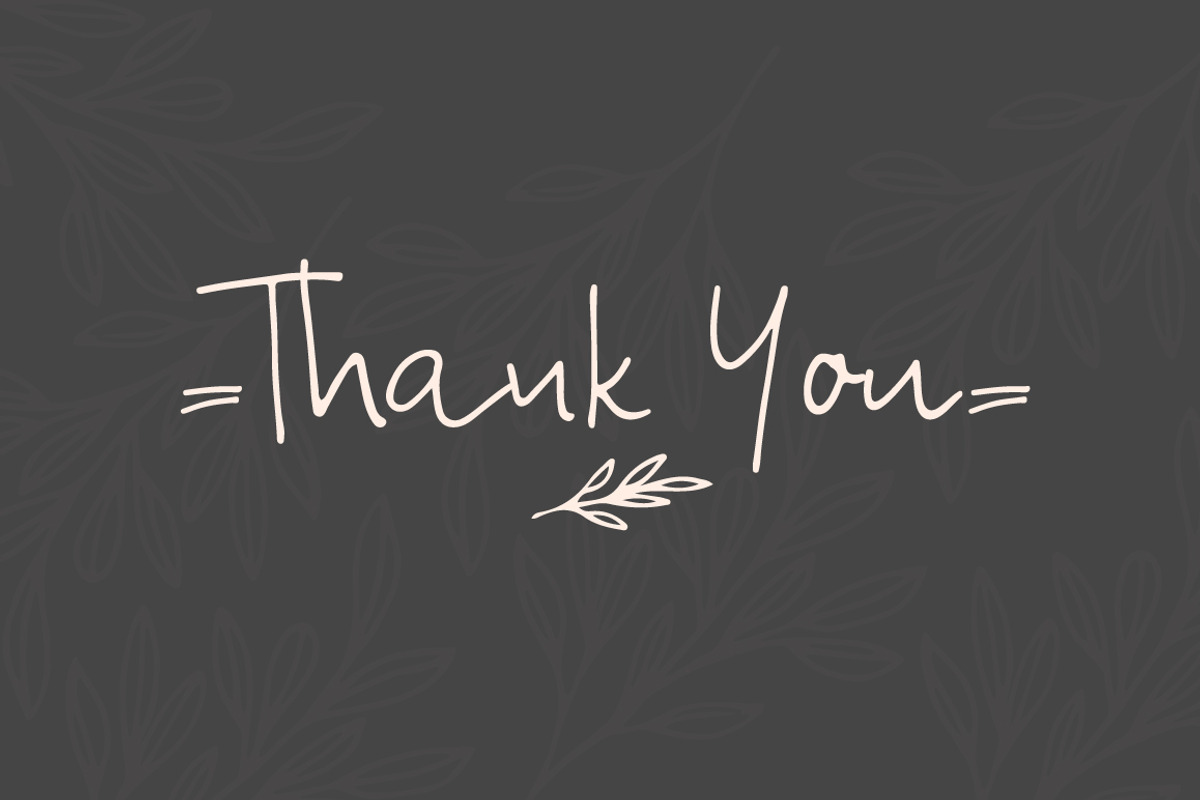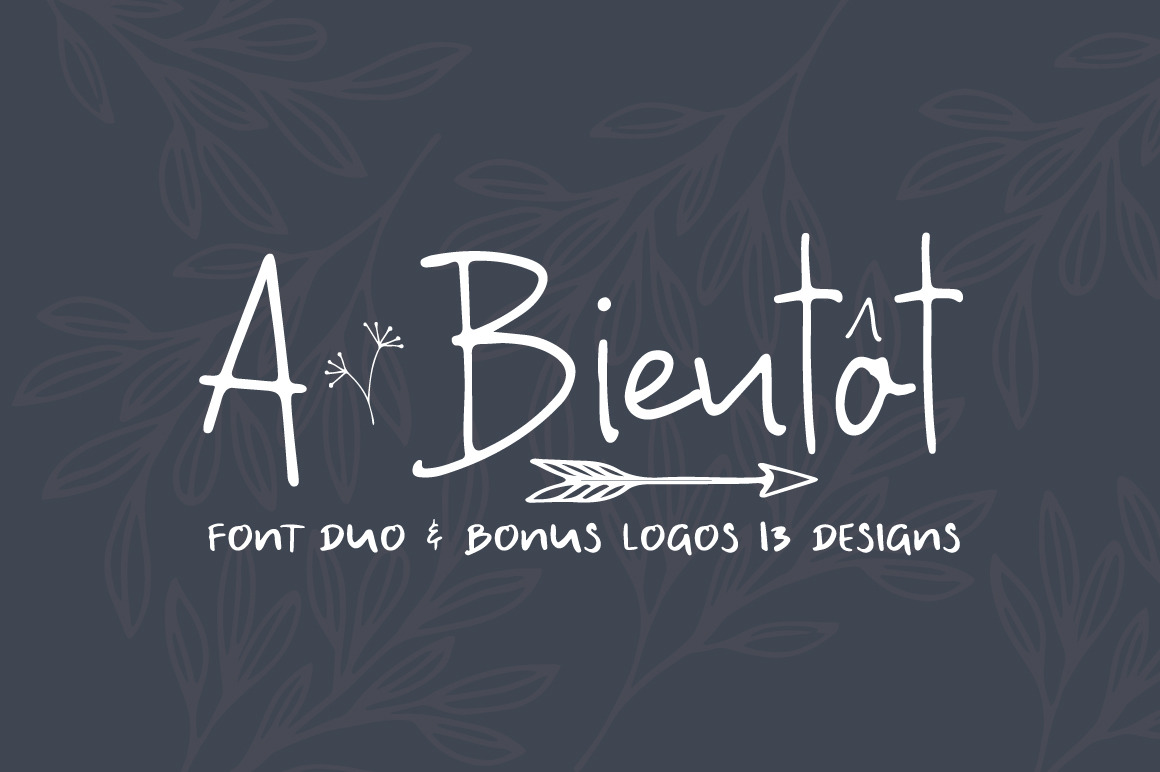
A Bientot | Font Duo with Bonus Logo
A Bientot
it's handwritten script font.
This font a perfect for wedding invitation or your blog. Also with their help, you can create a logo or beautiful frame for your home. Or just use for your small business, book covers, stationery and more.
Include languages in script font: English France Italian Spanish German Dutch Finnish Danish